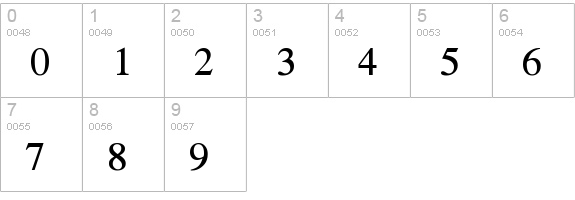
Times CG ATT Font Details
Introducing Times CG ATT, a timeless and elegant font that captures the essence of sophistication and professionalism. With its clean lines and refined curves, this font is perfect for any project that requires a touch of classic beauty. Times CG ATT is not only visually stunning, but it also offers incredible versatility. Its carefully crafted letterforms ensure legibility in both print and digital mediums, making it ideal for anything from elegant invitations to impactful headlines. One of the most remarkable aspects of Times CG ATT is that it is available to download for free. That's right, this exceptional font can be yours without any cost. Simply visit FontsMarket.com and discover the vast collection of fonts, including Times CG ATT, that are freely available for your creative endeavors. Whether you are a designer looking to add a touch of sophistication to your work or a content creator searching for the perfect font to convey your message with elegance, Times CG ATT is a must-have. Download it today and unlock a world of endless possibilities for your designs.